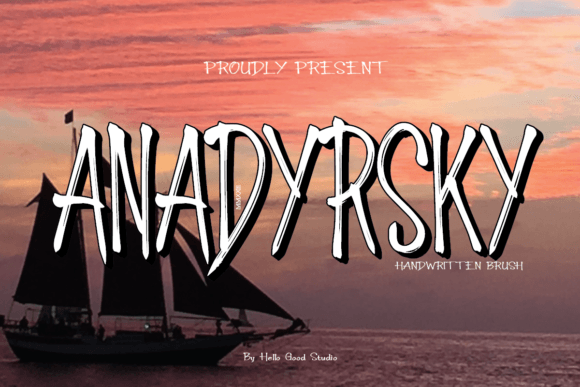
Prepare to be captivated by Anadyrsky Font, a breathtaking script font that dances across the digital canvas with its natural and unique handwritten charm. This exquisite creation by studiohellogood is a masterpiece waiting to elevate your creative projects to unparalleled heights.
Step into a world of visual artistry where Anadyrsky's elegant curves and graceful strokes ignite your imagination, leaving you spellbound. Its carefully crafted characters exude a timeless beauty, reminiscent of classic calligraphy, yet pulsate with a contemporary energy that resonates with the modern era.
This font is not just a collection of letters; it's an invitation to embark on a creative odyssey. Whether you're a seasoned designer or just starting, Anadyrsky will guide you effortlessly, transforming your vision into a tangible reality. Its versatility knows no bounds, adapting seamlessly to a symphony of design possibilities.
Picture this: you're creating a spellbinding gaming banner, and Anadyrsky becomes the conductor of your creative vision. Its enchanting characters dance across the screen, captivating your audience with their magnetic pull. Each letter radiates a distinct personality, drawing viewers into the heart of your gaming realm.
Dive into the depths of Anadyrsky's charm and embrace its power to cast a spell on your audience. Its flowing lines and enchanting curves will elevate your designs, leaving an enduring impression that echoes long after the initial encounter.